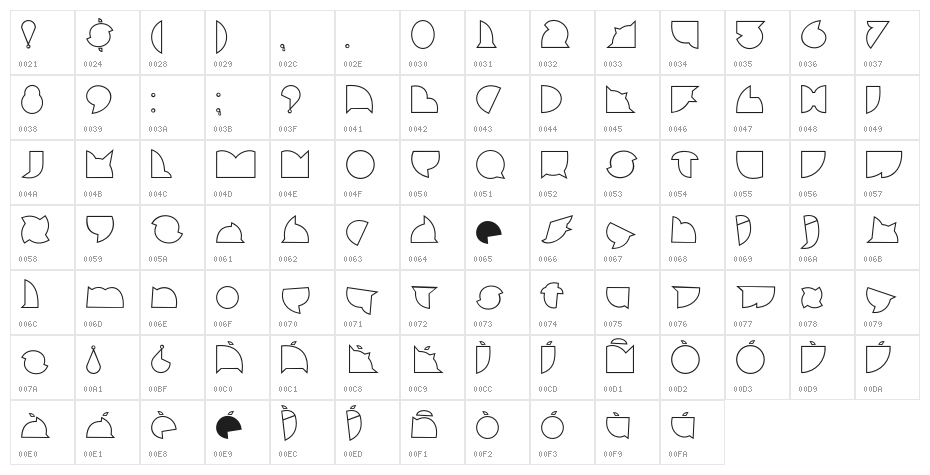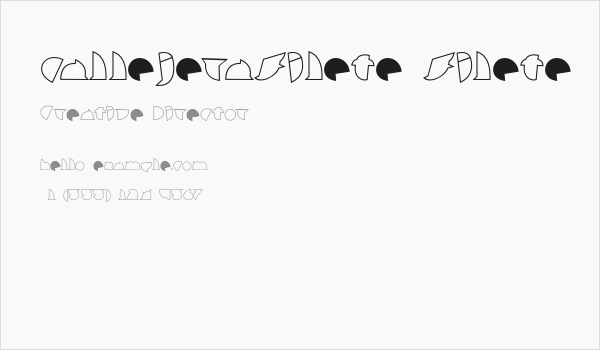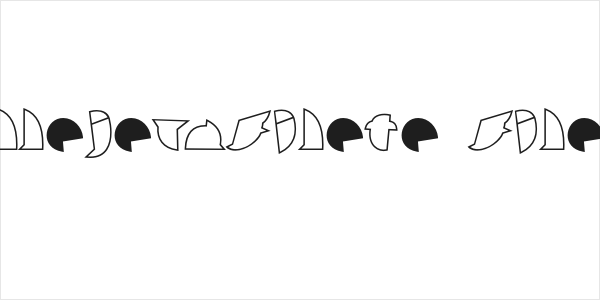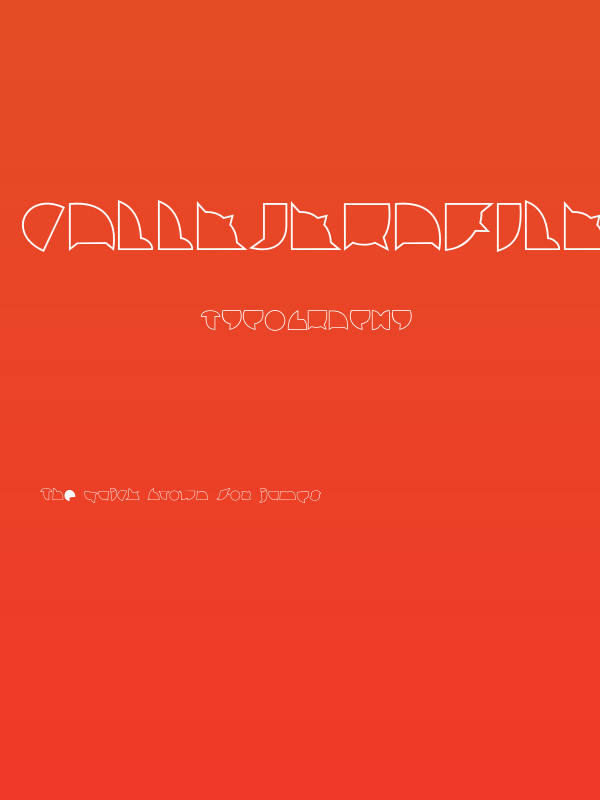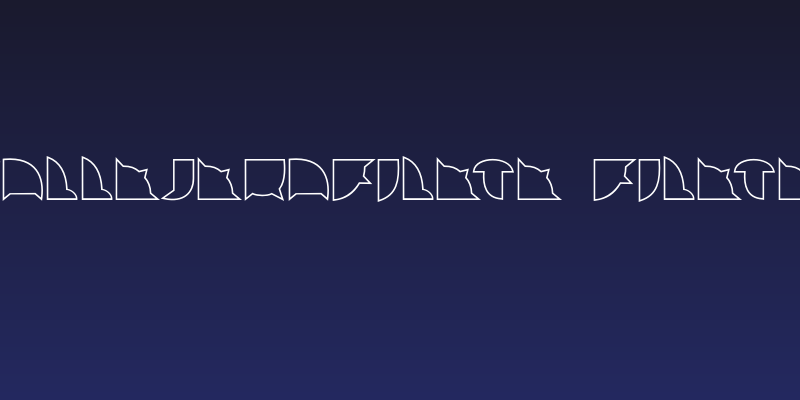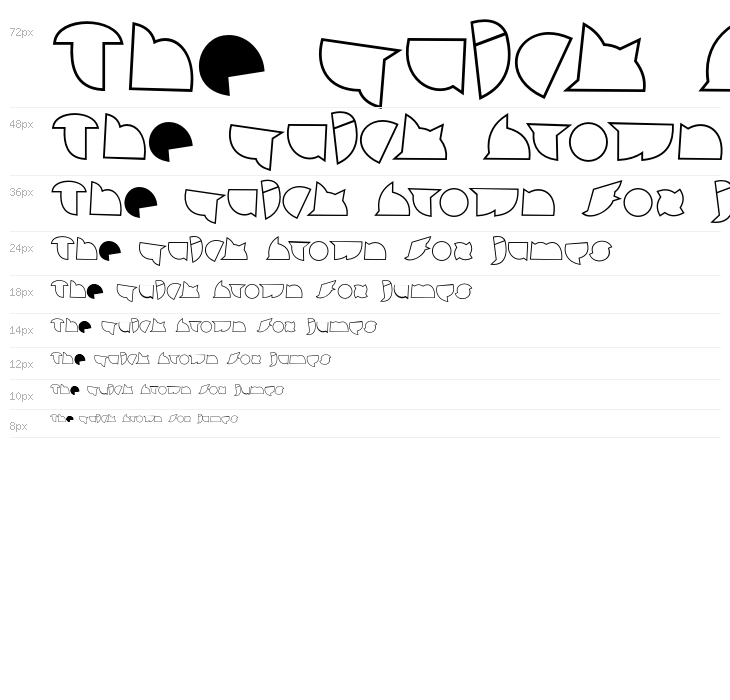
callejerafilete-filete Font
callejerafilete-filete Description
This font features a unique and abstract design, characterized by geometric shapes and bold outlines. Each character is crafted with a combination of sharp angles and smooth curves, creating a visually striking and modern appearance. The uppercase and lowercase letters maintain a consistent style, with a playful yet structured form. Numbers and special characters follow the same design principles, ensuring a cohesive look across all elements. The font's distinct style makes it suitable for creative and artistic projects, where a bold statement is desired.
Proposed ProjectsIdeal for modern art posters, album covers, branding for creative industries, and unique logo designs.